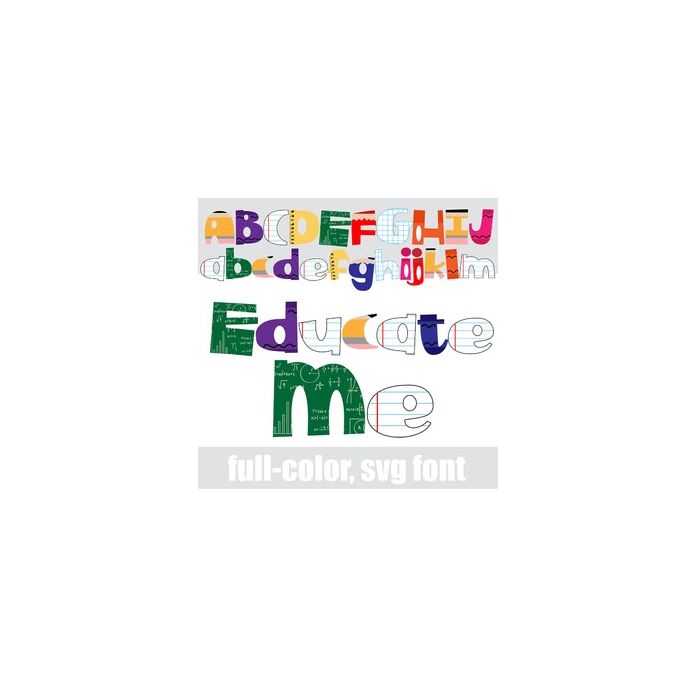
This full-color font features chunky, sans serif lettering, styled like typical school supplies. There is an alt case w/ additional colors you can access through your system or Silhouette's glyph map.